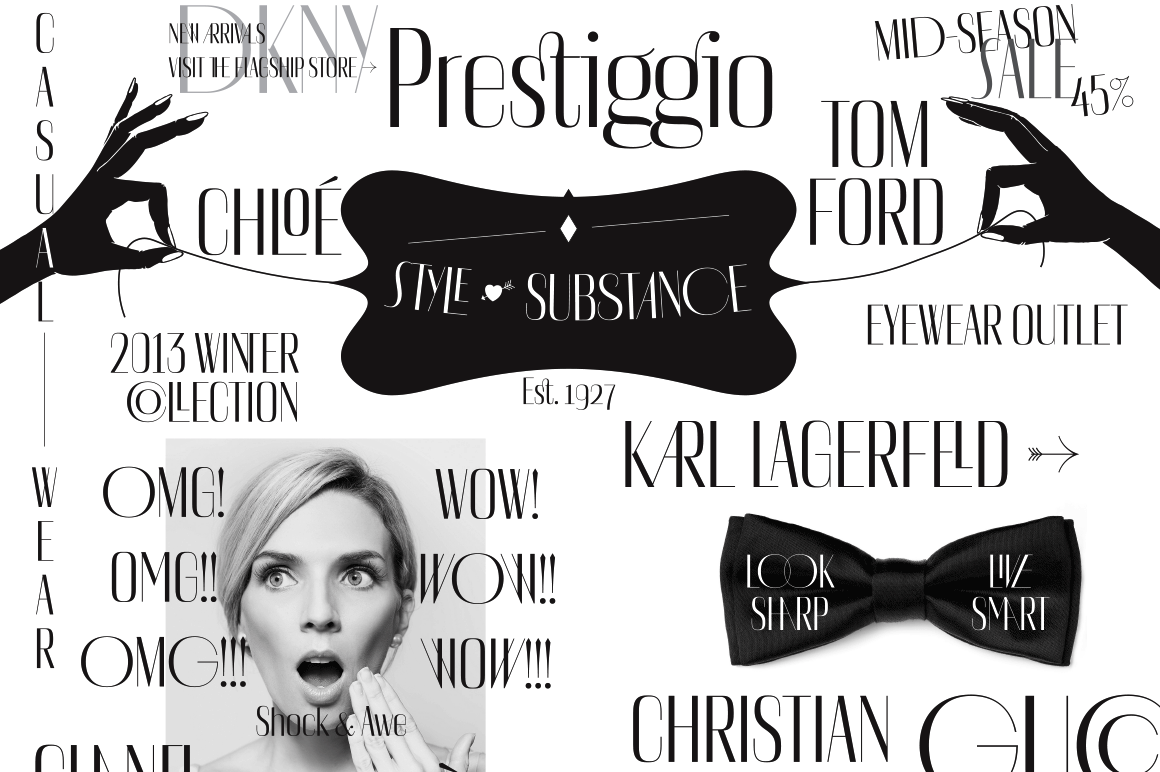
Prestiggio Elegant Fashion Font
With the very high contrast, graceful proportions, many alternate glyphs and ligature overload, Prestiggio is an instant fashionizer. Inspired by the elegance of the likes of Audrey Hepburn, Manhattan architecture of 30-ies, and the modern aesthetics of luxury high-fashion brands, it lends a sharp distinguished look to your headlines, ranging from restrained charm to loud and trendy with a click of a button.
Prestiggio's 95 discretionary ligatures (uppercase and lowercase), alternate characters and old-style figures invite to play while you work. The characters can be replaced automagically with the stylistic sets function, but you will get the best results using the glyphs palette.
Prestiggio has a wide language support, and is fully suitable for serious Western typography, including localized forms for Romanian and Moldavian languages.
Whether you design a wedding card, a striking poster or a stylish magazine headline, Prestiggio is par for the course.
Craft your unique look with alternate characters and playful ligatures — from elegantly reserved style of Grace Kelly to crazy pop sexiness of Lady Gaga.
85 supported languages
Old style figures for an even more sophisticated look that blends with text settings
Lining figures suited for all-caps settings
Up to 4 alternate characters to emphasize your personal lettering style
Discretionary ligatures to lend the headline a unique graphic quality
Various arrows, because bullet points are so Word 2000
Catchwords and icons for the fun of it